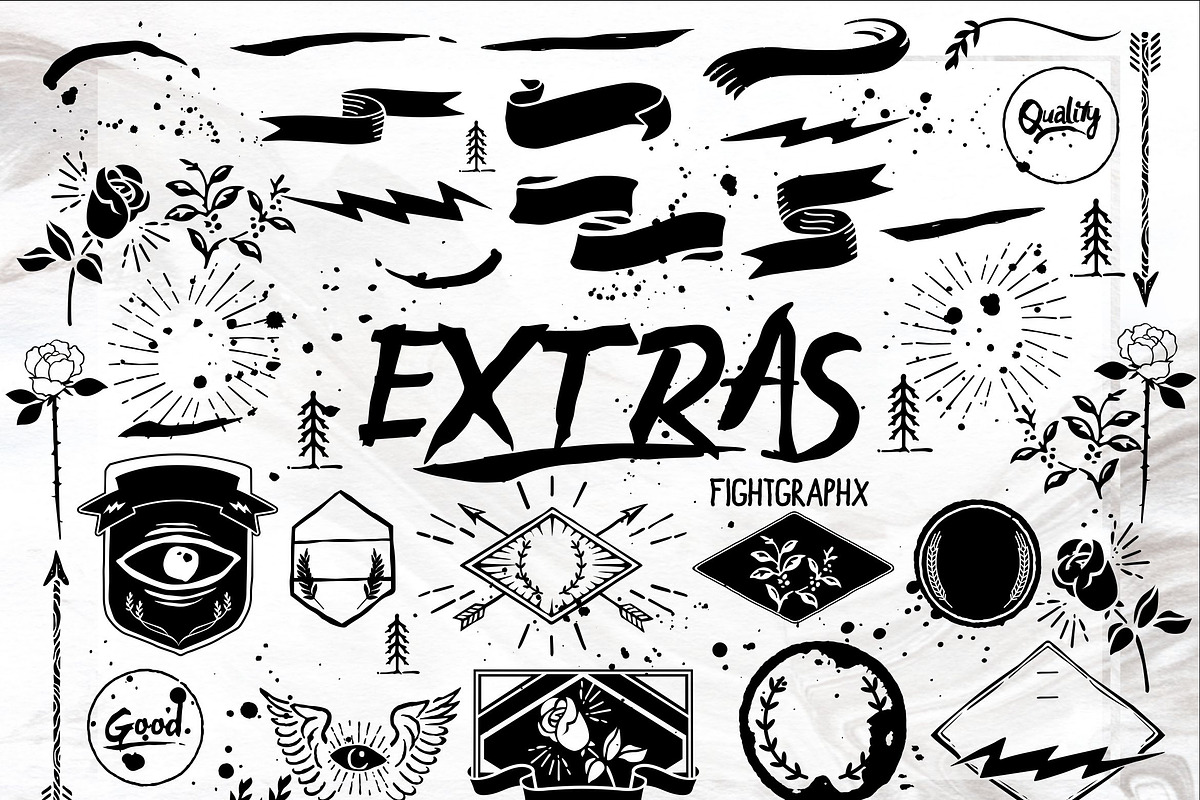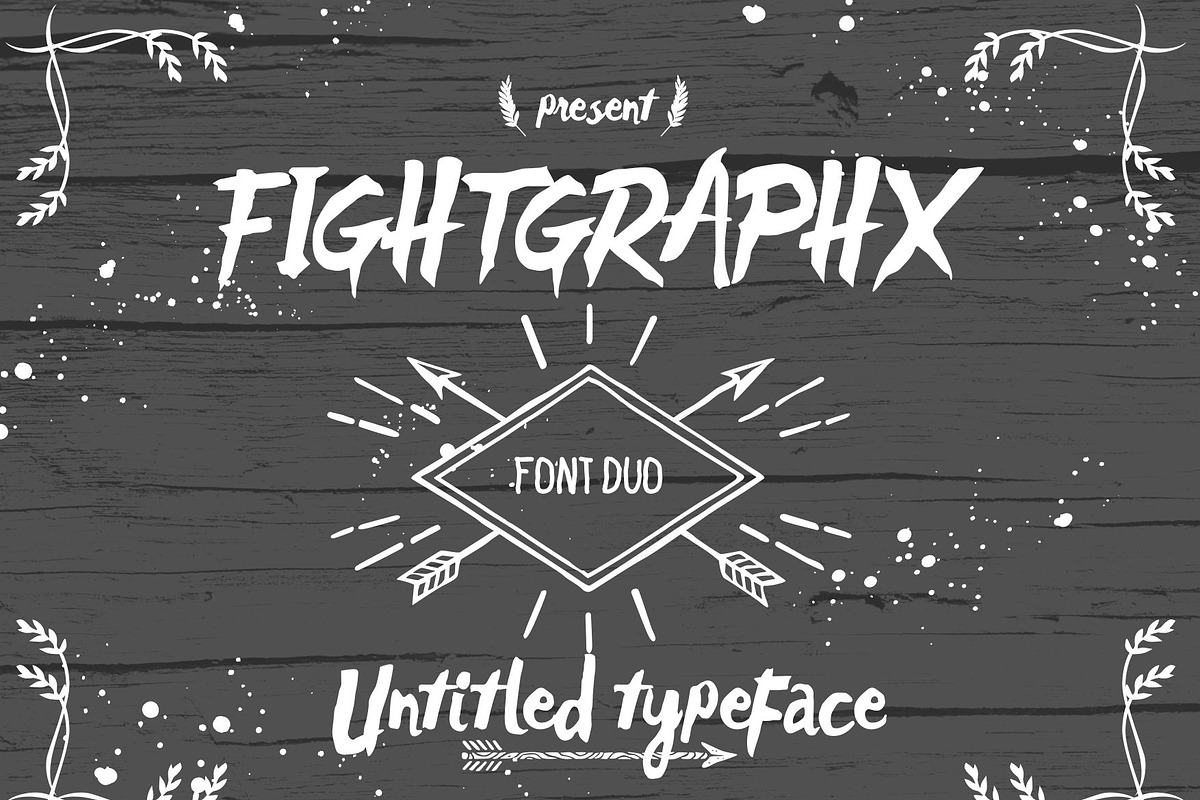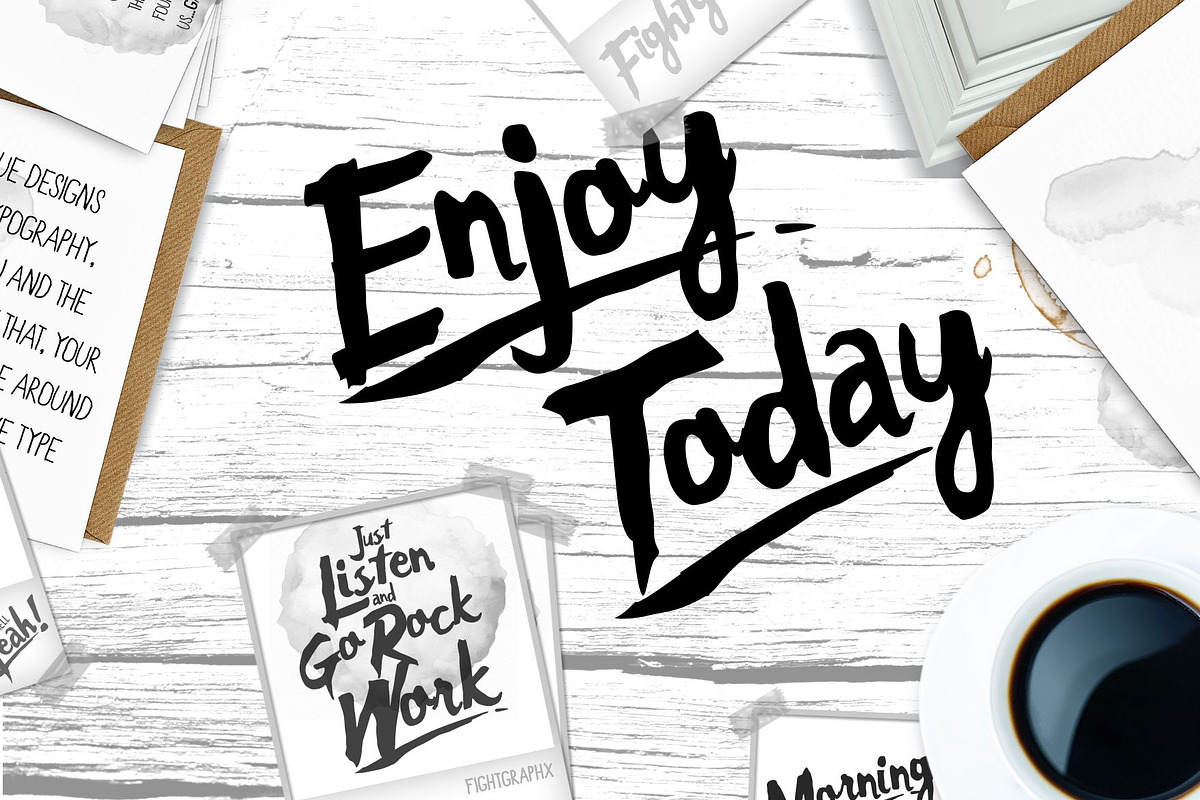
Raws Untitled font duo + extras
Raws Untitled font duo + extras by Graphx.unsleep is a font selected for branding, posters, packaging, typography.
- Untitled typeface Regular
- Untitled typeface line Regular
Why Raws Untitled font duo + extras is worth a look
Raws Untitled font duo + extras by Graphx.unsleep fits naturally into Branding, posters, packaging, typography.